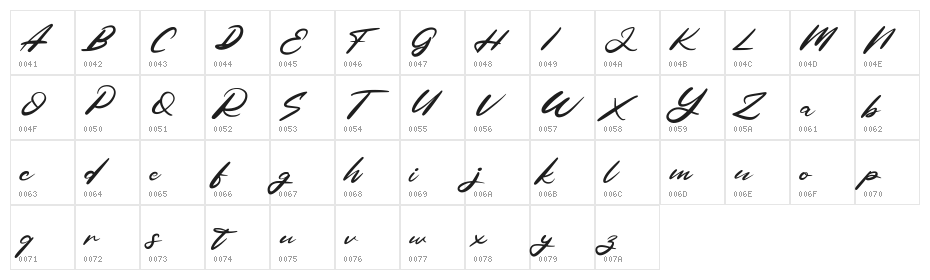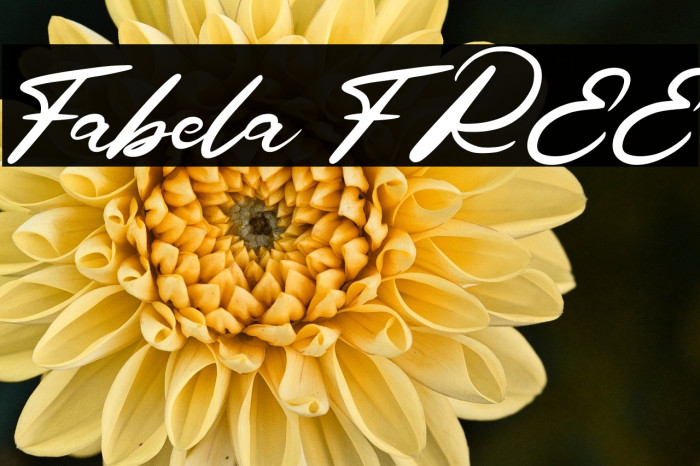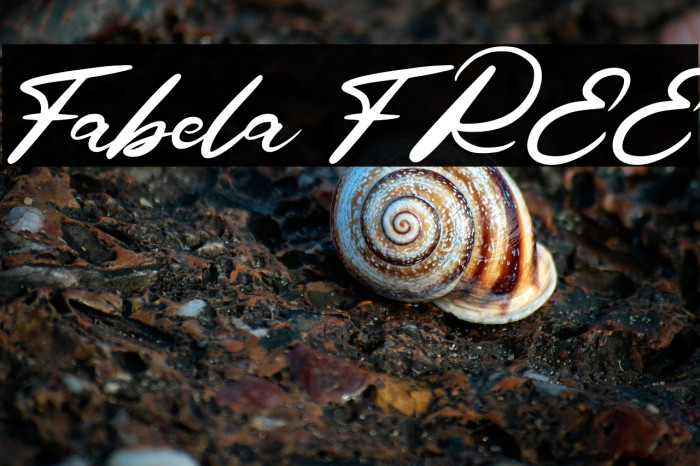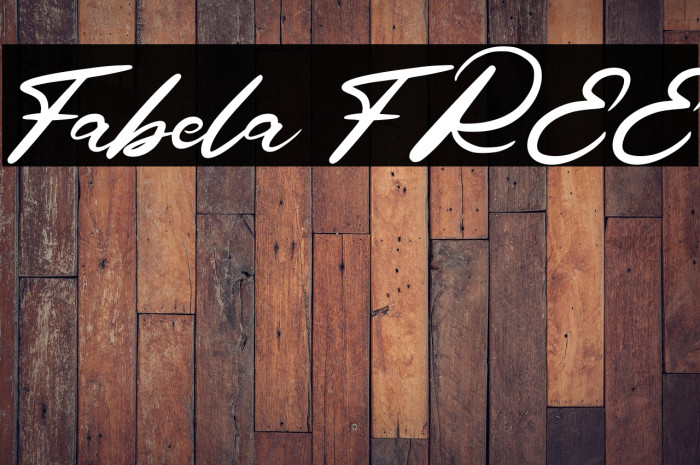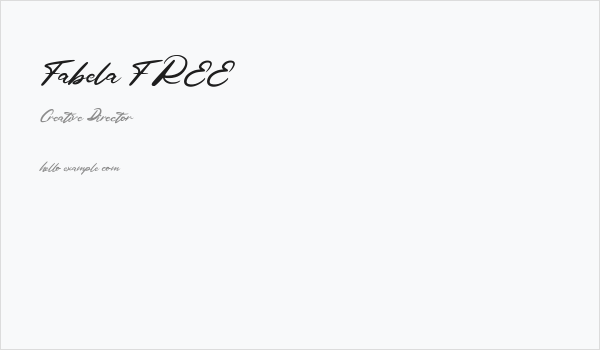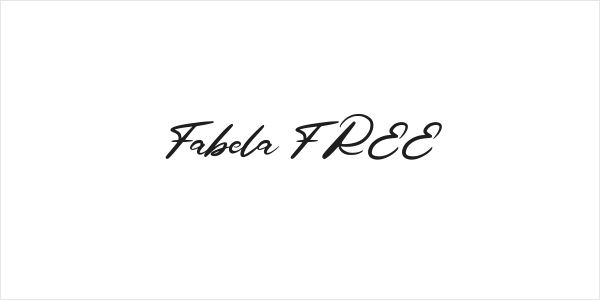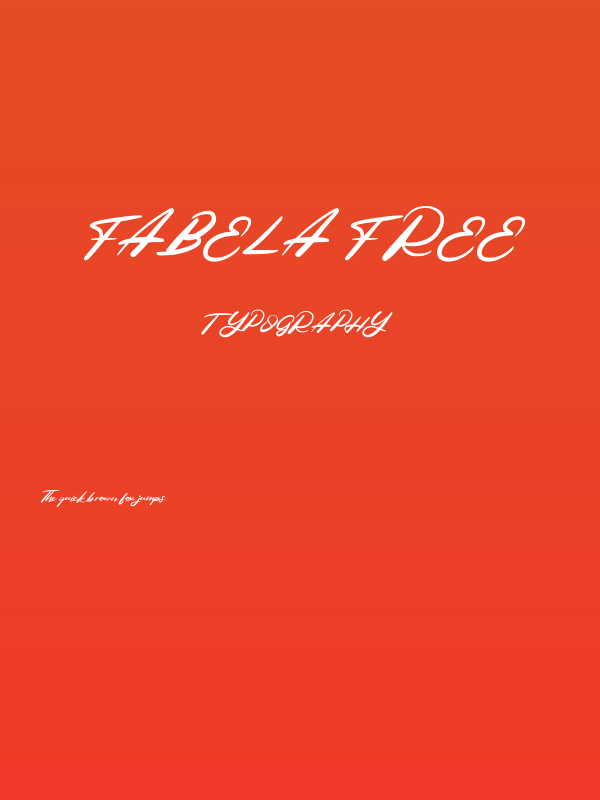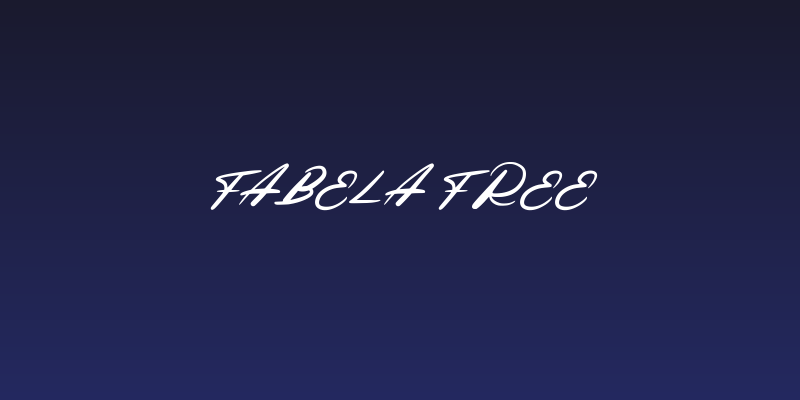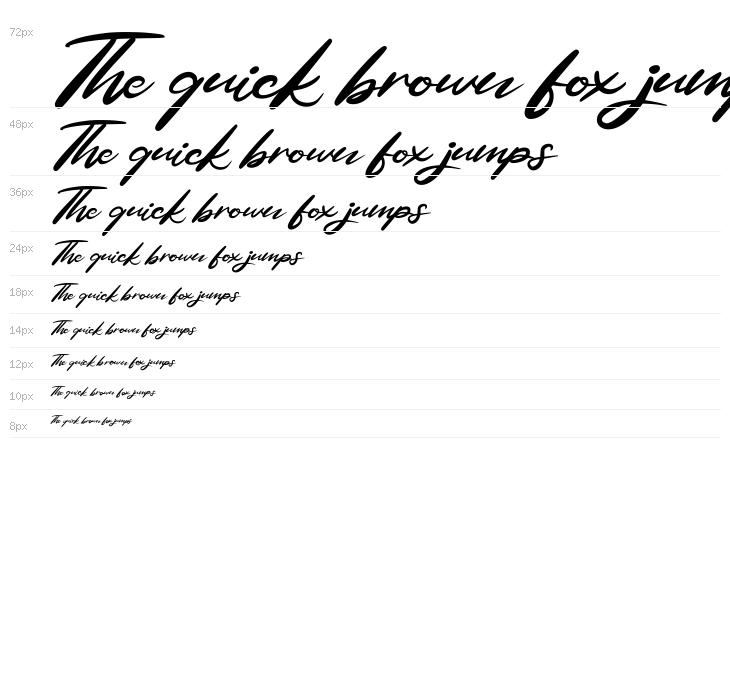
Fabela FREE Font
Fabela FREE Description
This font features a dynamic and fluid script style, characterized by its elegant and flowing letterforms. The uppercase letters exhibit a sophisticated flair with smooth curves and a slight slant, while the lowercase letters maintain a consistent rhythm and graceful connections. The overall appearance is both stylish and legible, making it suitable for a variety of design applications. The font includes a full set of uppercase and lowercase letters, numerals, and a selection of special characters, ensuring versatility in usage. Its artistic nature is enhanced by the moderate contrast in stroke thickness, adding to its visual appeal.
| Overall Style | Elegant |
| Use Case | Logos, Invitations, Branding |
| Proposed Projects | Ideal for wedding invitations, branding projects, greeting cards, and elegant packaging designs. |